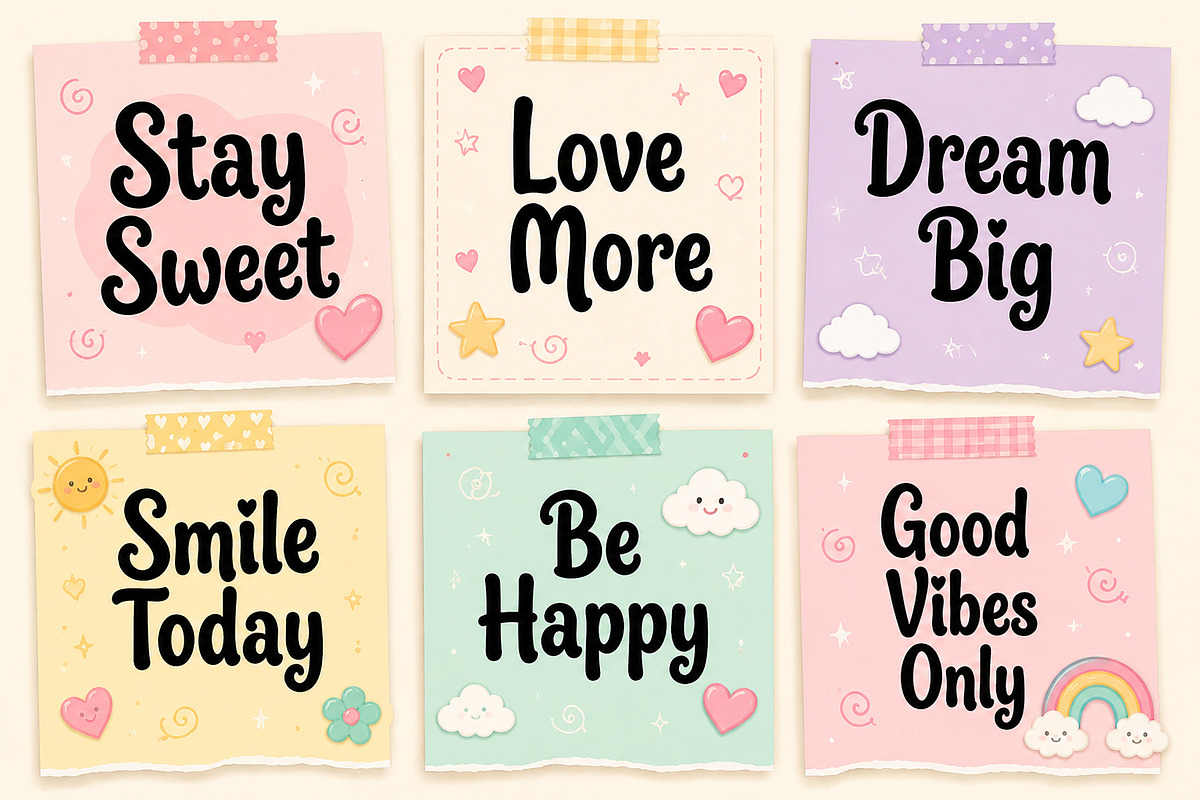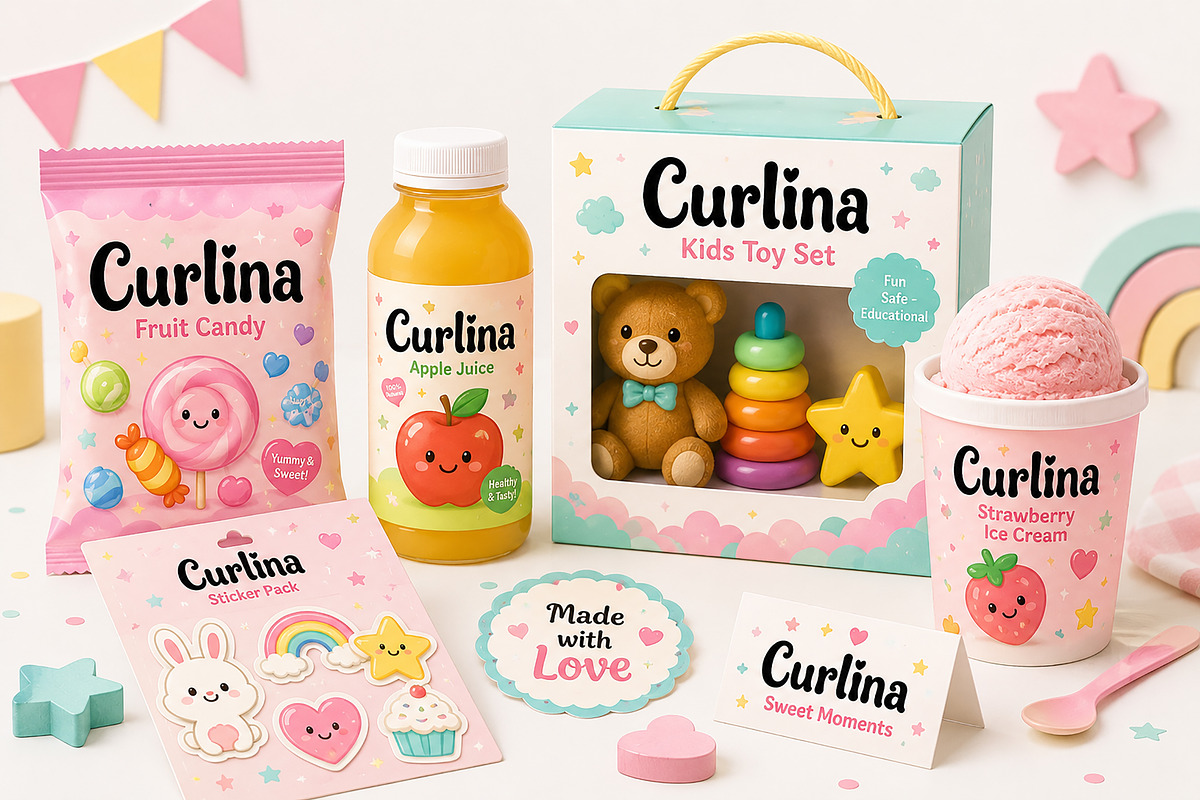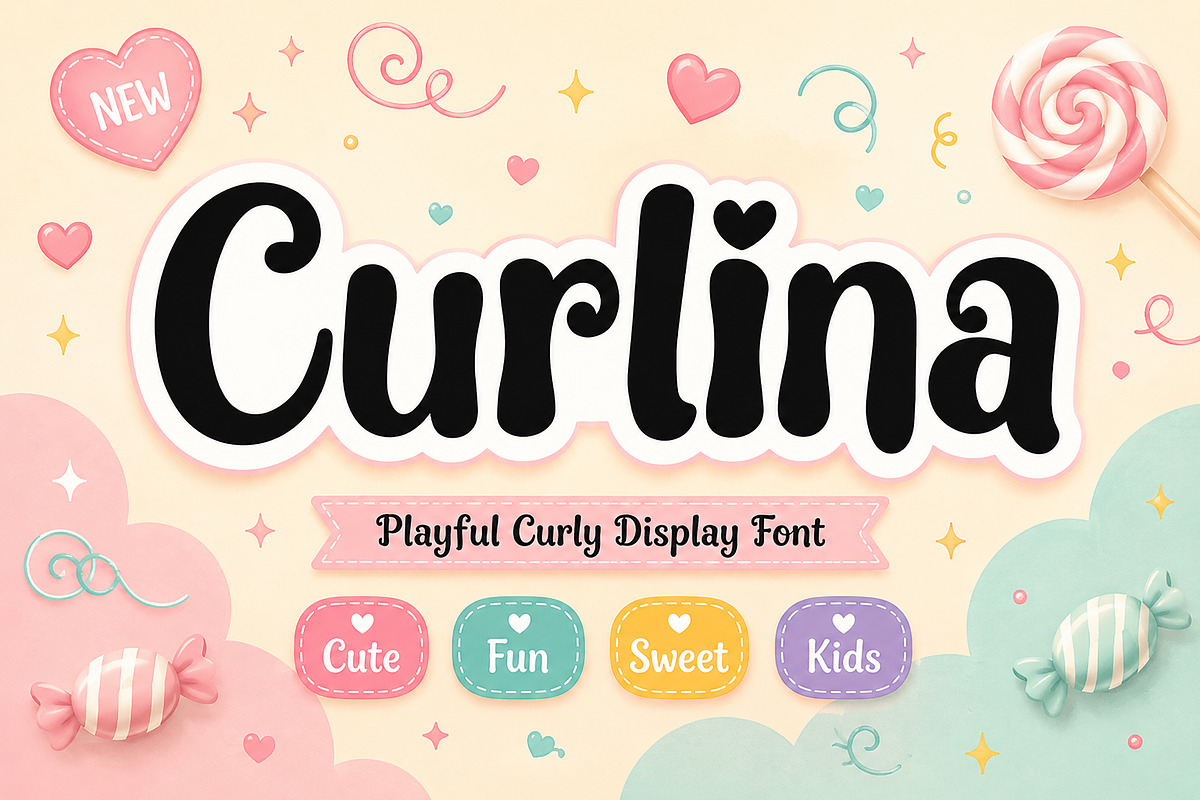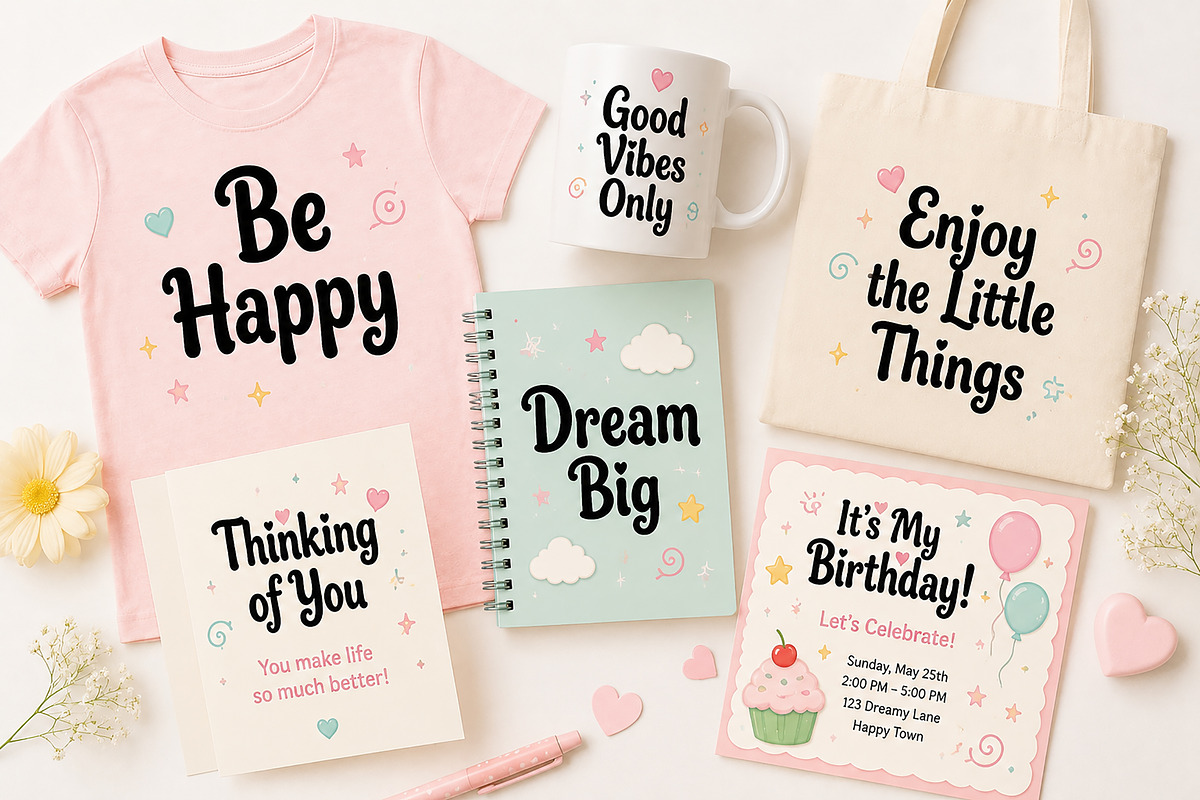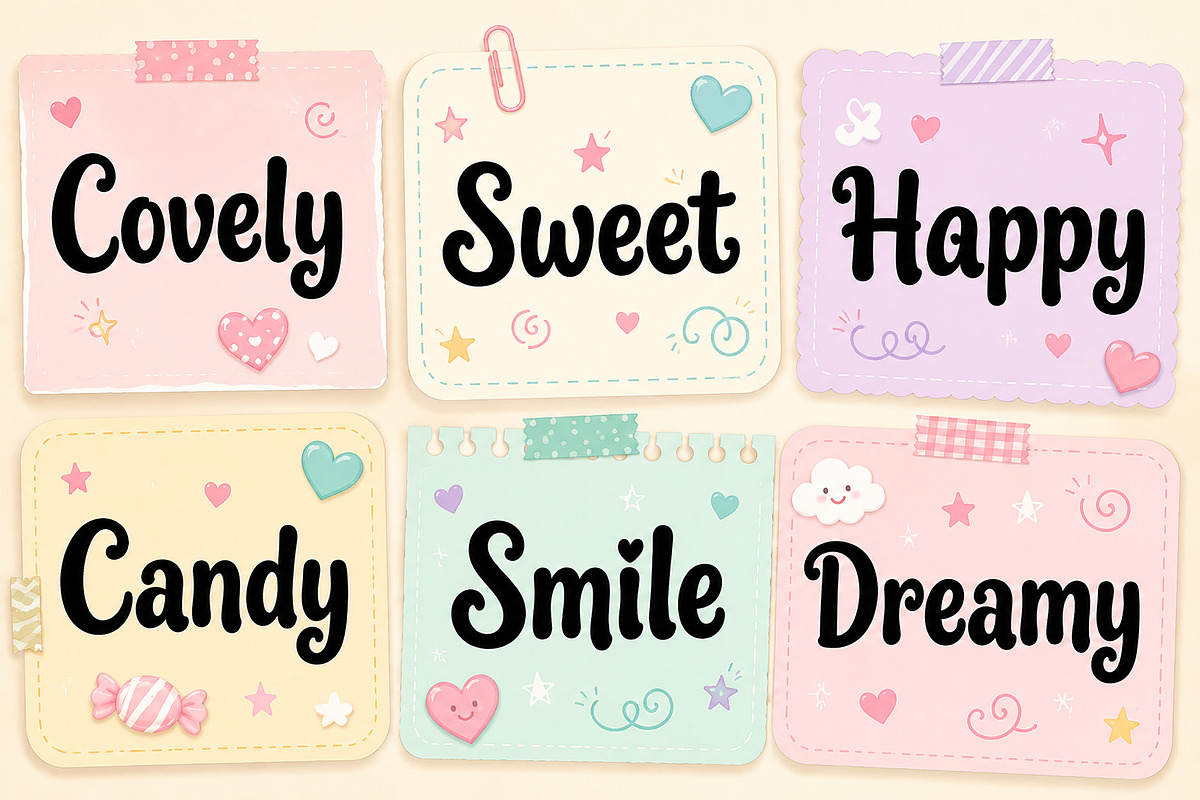
Curlina
Curlina is a playful curly display font designed to bring sweetness, charm, and fun into your creative projects. With its soft rounded shapes, whimsical curls, and adorable personality, Curlina is perfect for kids branding, candy packaging, playful logos, greeting cards, social media quotes, birthday invitations, and craft projects.
Its unique handcrafted style makes every word feel lively, cheerful, and full of personality. Whether you're creating cute product packaging, fun posters, or eye-catching merch designs, Curlina adds a warm and joyful touch that instantly stands out.
This font works beautifully for:
• Kids product branding
• Candy & snack packaging
• Toy logos
• Birthday invitations
• Social media quotes
• T-shirt designs
• Mug designs
• Sticker packs
• Greeting cards
• Scrapbooking
• DIY crafts
• Print-on-demand products
Add a playful and sweet handmade feel to your designs with Curlina — the perfect font for fun-loving and creative projects.